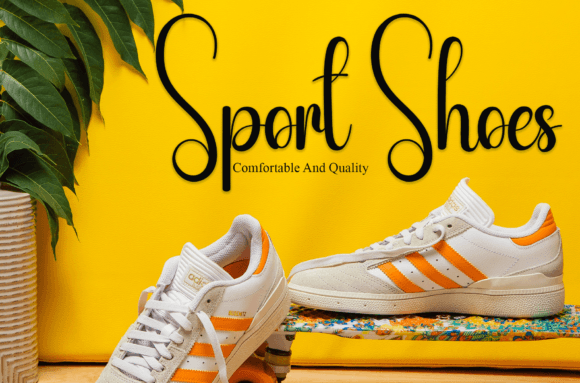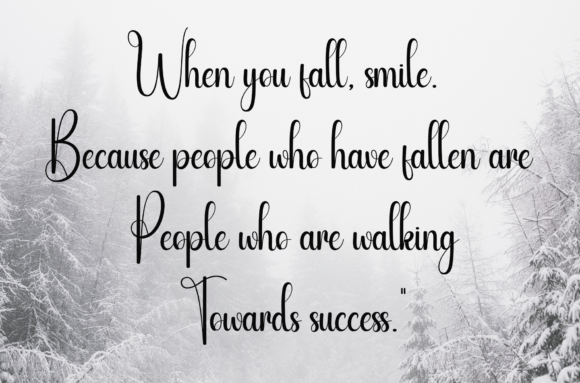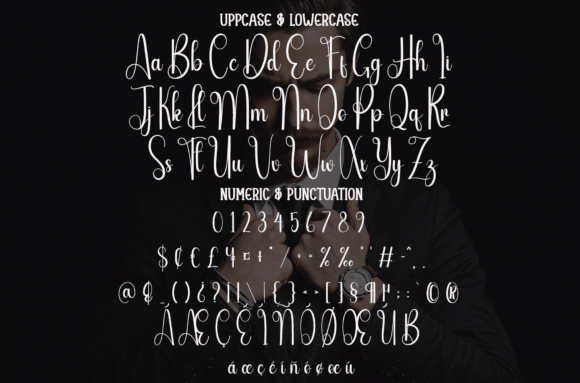
Introduction to Mister Font
Remember the excitement of planning your wedding or creating a special card for a loved one? The search for the perfect design resource can be overwhelming, but sometimes all it takes is one font to make your project stand out. For me, that font is Mister Font – a sweet and friendly handwritten font that brings a touch of personality to any design.
As a designer, having access to high-quality fonts like Mister Font can be a game-changer. Not only does it offer a fresh and neat aesthetic, but it’s also available for free download, making it an ideal choice for creative projects on a budget. Plus, its transparent background allows for seamless integration with any design element, making it a valuable addition to any designer’s toolkit.
With Mister Font, you can add a fun and personal touch to your designs, from wedding invitations to greeting cards and beyond. In this article, we’ll dive deeper into the world of Mister Font and explore its many uses and benefits.
- Unique characteristics include a modern aesthetic and versatile styling options
Honest Review: Mister Font
I recently had the opportunity to work with Mister Font, a high-quality design resource that has been gaining popularity among designers. Overall, I was impressed with the fonts offered by Mister Font, and I’d like to share my honest review with you.
- ✨ Wide range of fonts: Mister Font offers a vast collection of fonts, catering to various design styles and needs.
- ✨ High-quality designs: Each font is carefully crafted, resulting in professional-looking and readable designs.
Overall, I was pleased with Mister Font’s offerings, and I’d recommend it to designers looking for high-quality fonts for their creative projects. While there are some limitations, the pros far outweigh the cons. With its wide range of fonts and free download option, Mister Font is definitely worth exploring.
Mister Font
Mister Font is a high-quality design resource that offers a wide range of stylish fonts perfect for creative projects. With a transparent background, this font is easily customizable to fit any design need.
Tips for Getting the Most Out of Mister Font
Experiment with different font sizes and styles to create a unique look. Combine Mister Font with other design elements, such as images and graphics, to create a visually appealing design.
Mister Font is perfect for a variety of creative projects, including:
- Print and digital marketing materials